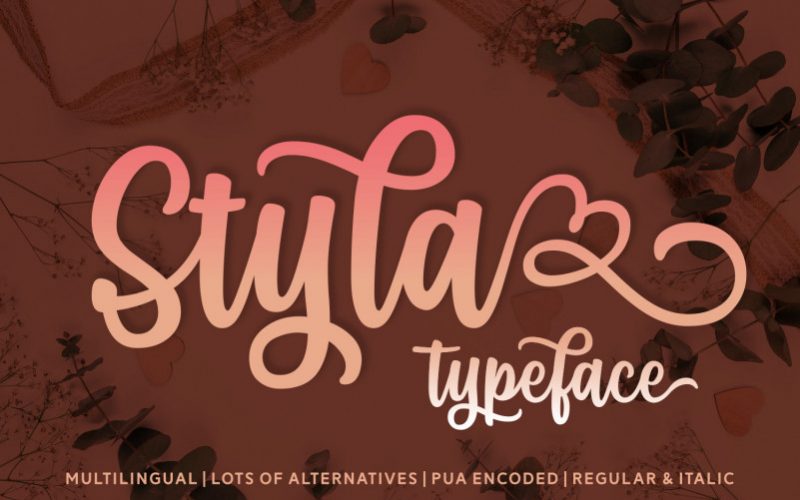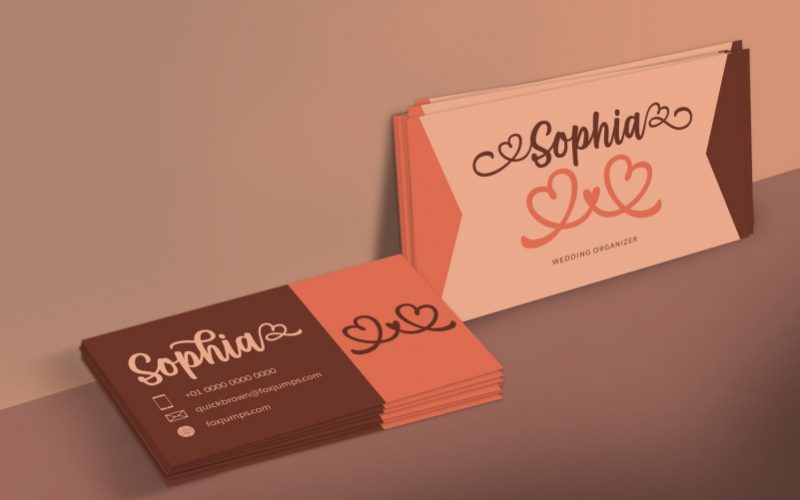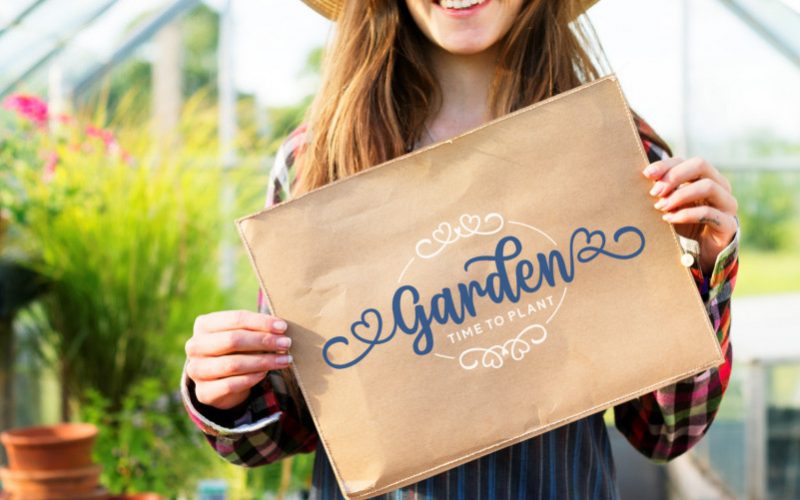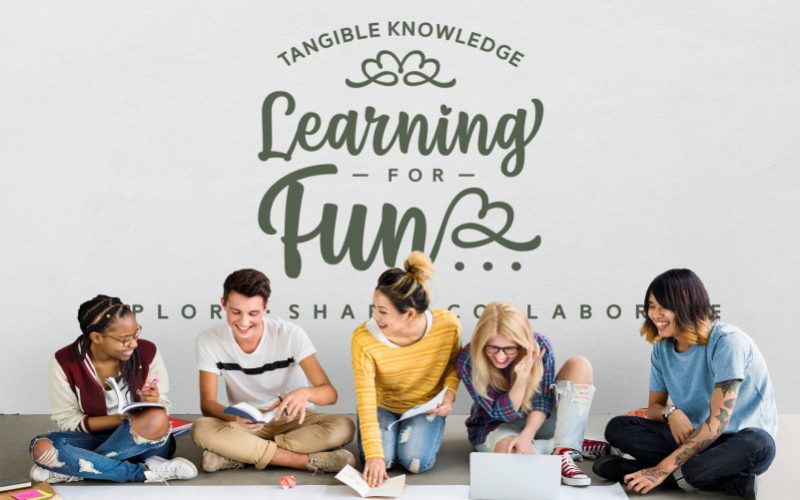
Styla Script Font
Styla is a fun and bold handwritten font with a unique urban spin. It will turn any design project into a true stand out.
Styla [Regular] Font by 7NTypes
Styla [Italic] Font by 7NTypes